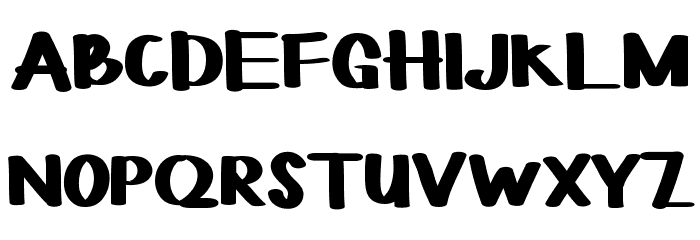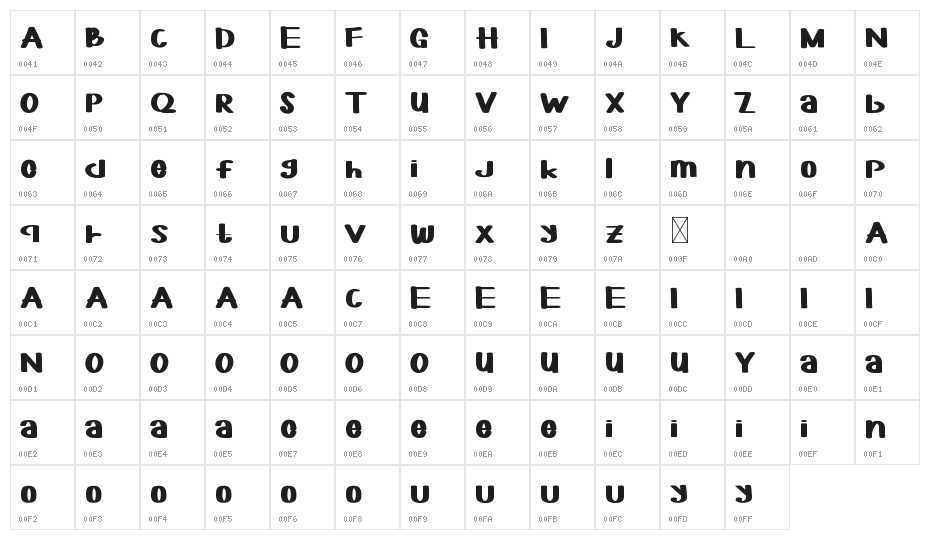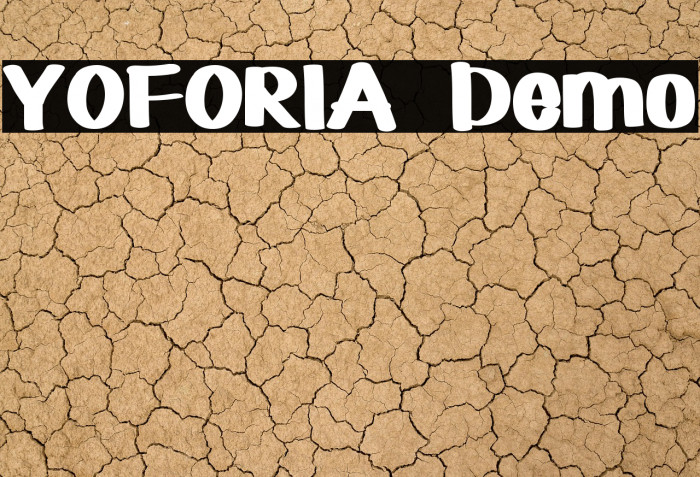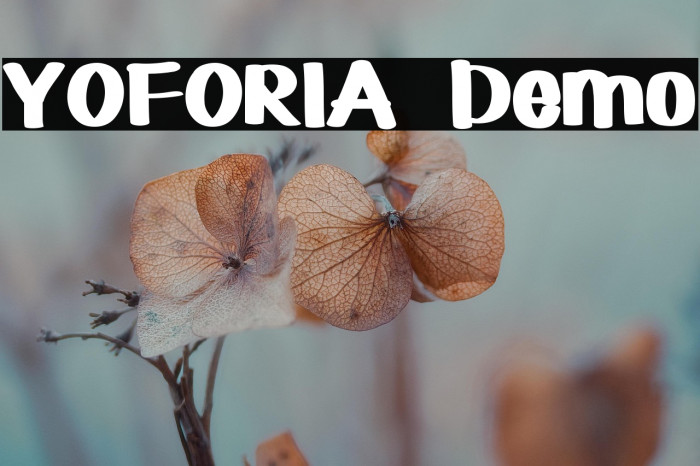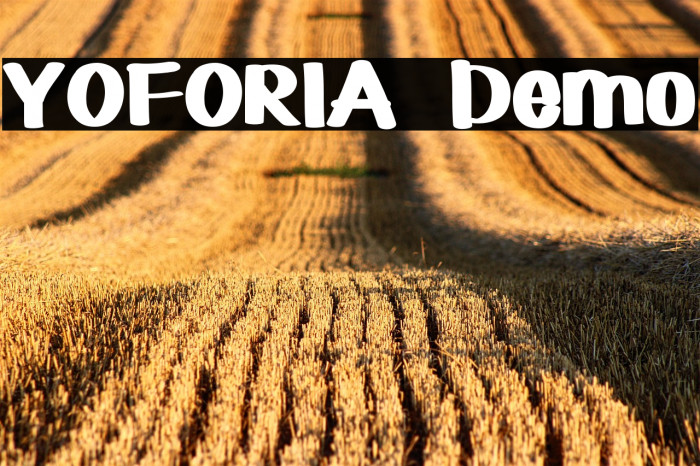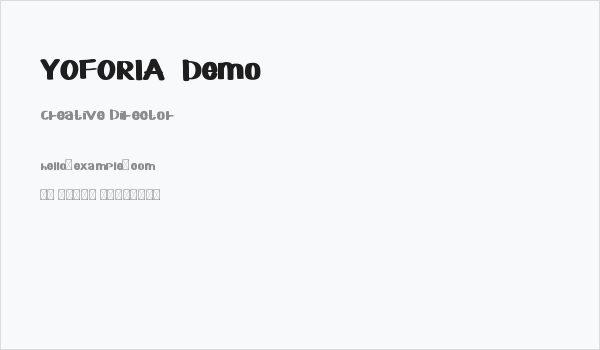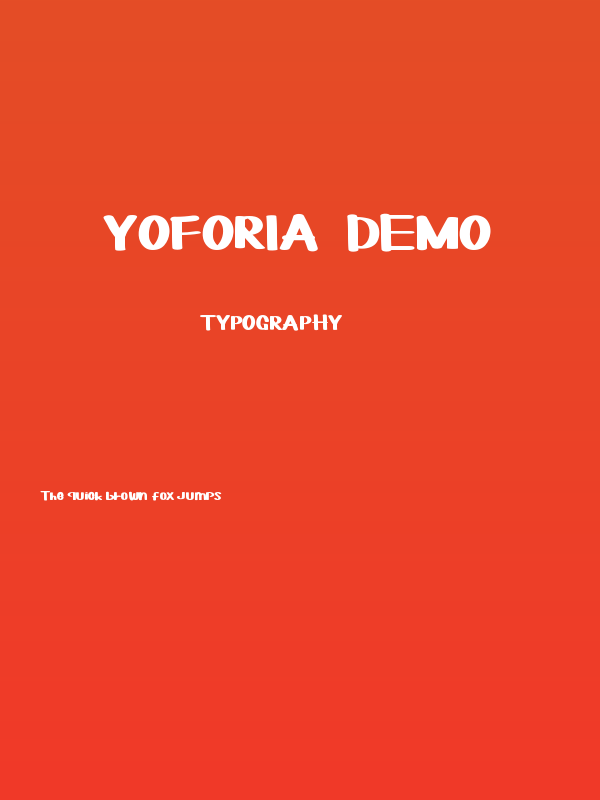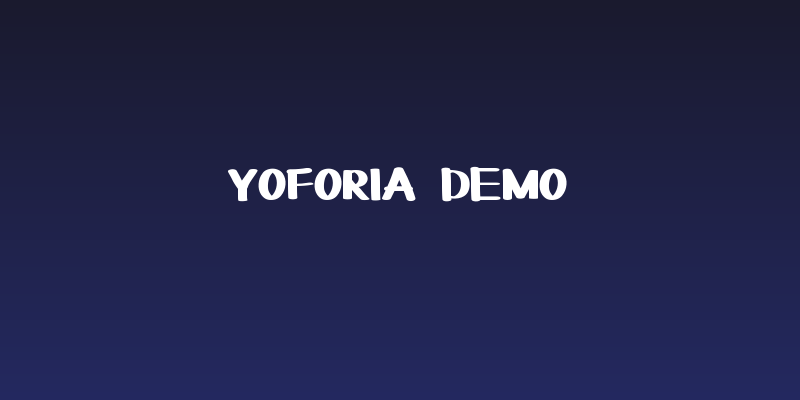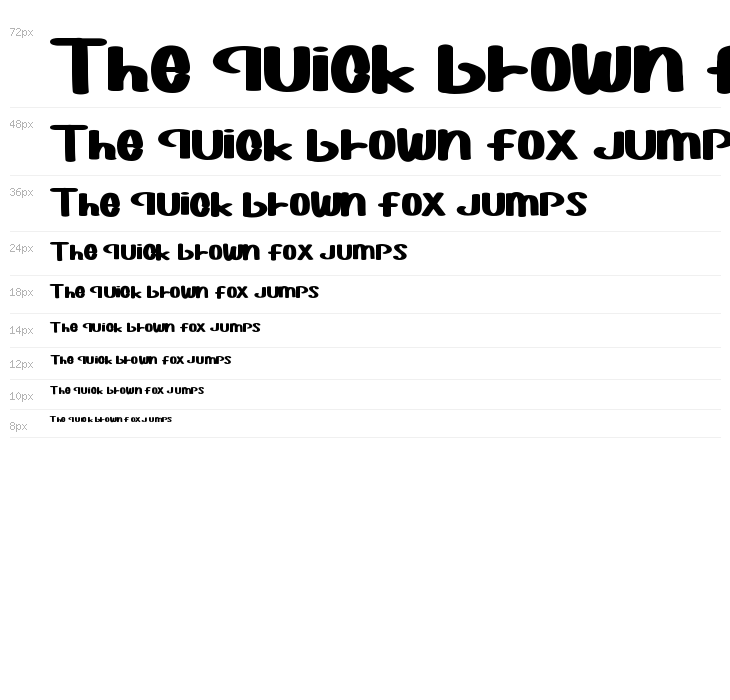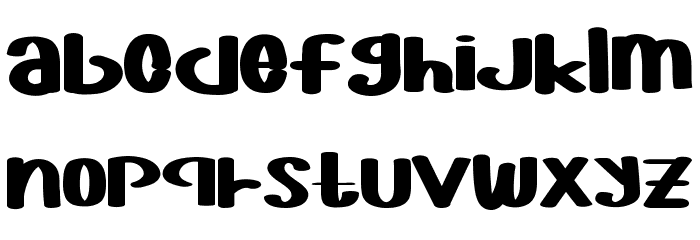
YOFORIA Demo Font
YOFORIA Demo Description
This font features a playful and bold style with a handwritten feel. The characters are rounded and have a consistent thickness, giving them a friendly and approachable appearance. The uppercase and lowercase letters maintain a uniform height, creating a cohesive look. The font includes a full set of uppercase and lowercase letters, numbers, and a selection of special characters. Its unique style makes it suitable for creative projects that require a touch of personality and flair.